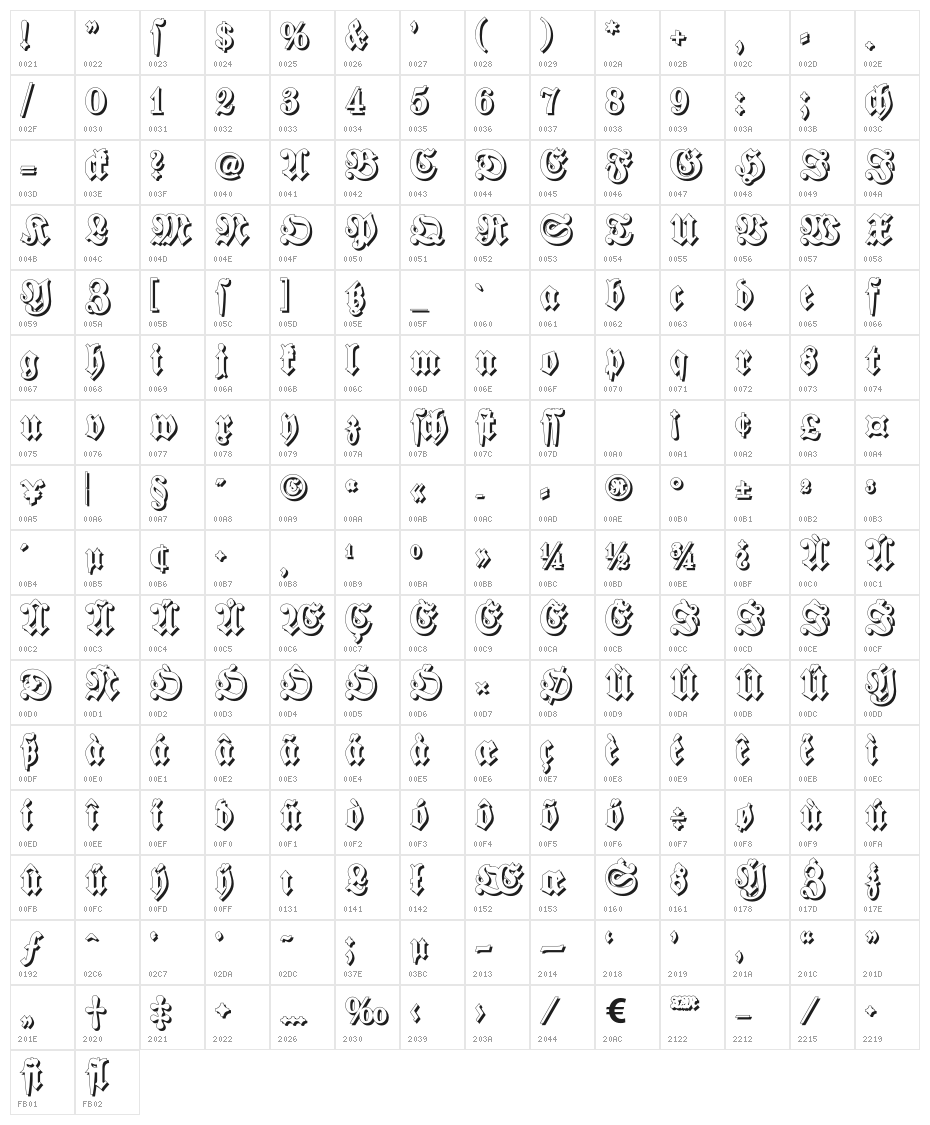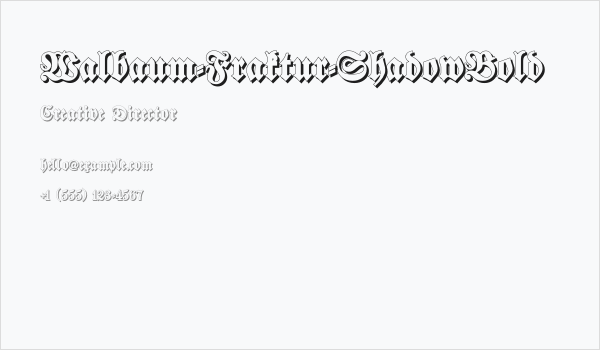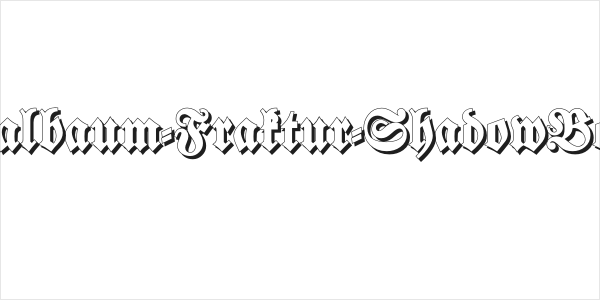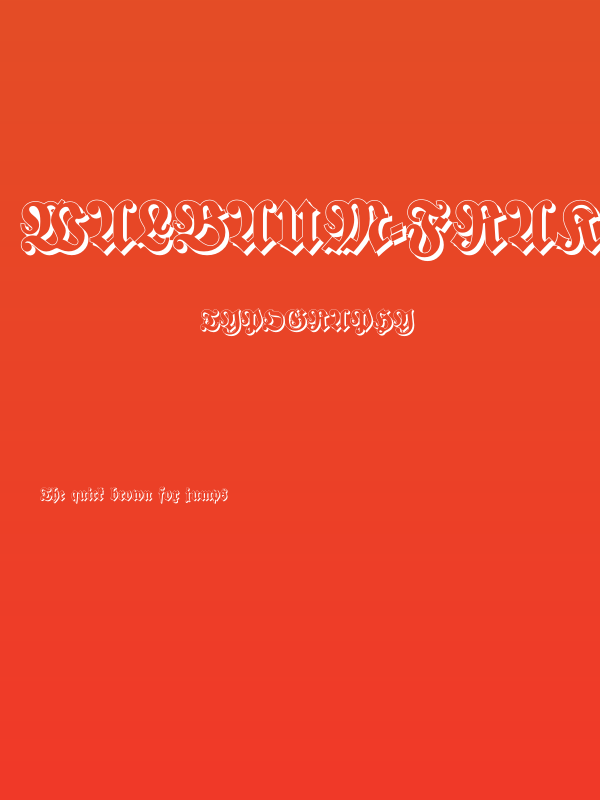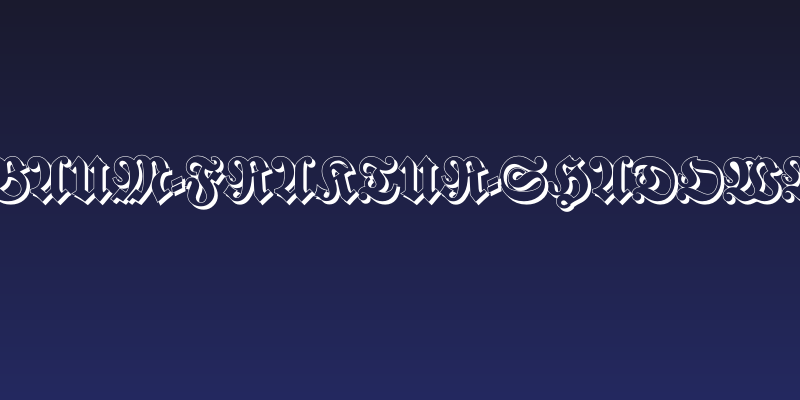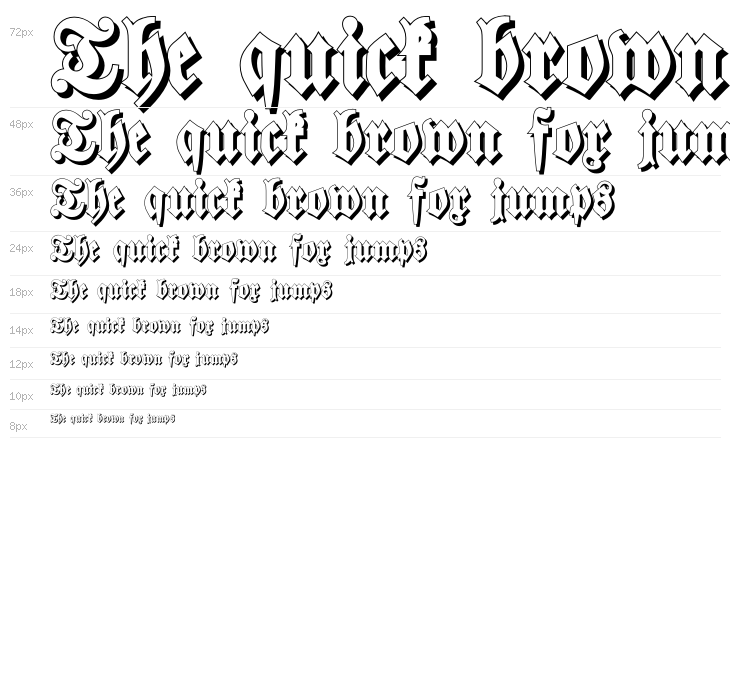
Walbaum-Fraktur-ShadowBold Font
Walbaum-Fraktur-ShadowBold Description
This font features a bold and dramatic blackletter style with a shadow effect that adds depth and dimension to each character. The uppercase letters are ornate and intricate, showcasing traditional fraktur elements with sharp angles and elaborate curves. The lowercase letters maintain the same decorative style, offering a consistent and cohesive look. The numerals are equally stylized, providing a unique and eye-catching appearance. Special characters are designed to match the overall aesthetic, making this font suitable for projects that require a historical or gothic touch.
| Proposed Projects | Ideal for use in vintage-themed designs, gothic posters, book covers, and branding that requires a historical or medieval touch. |